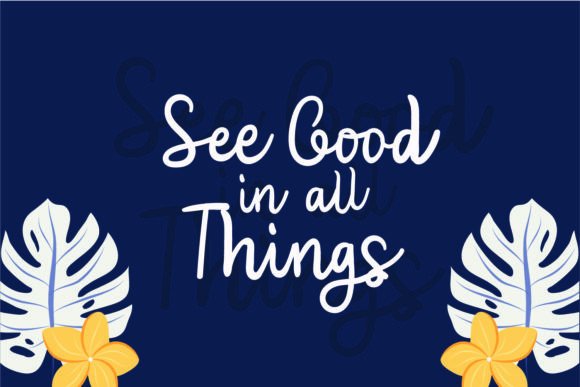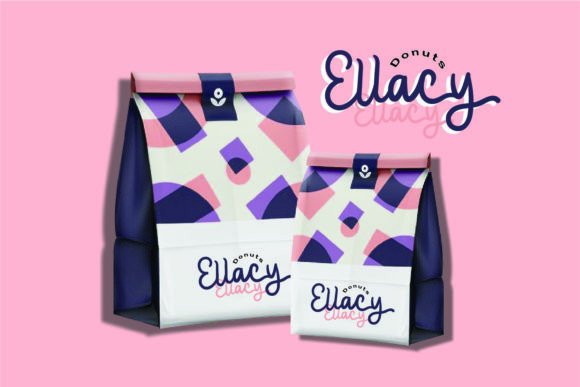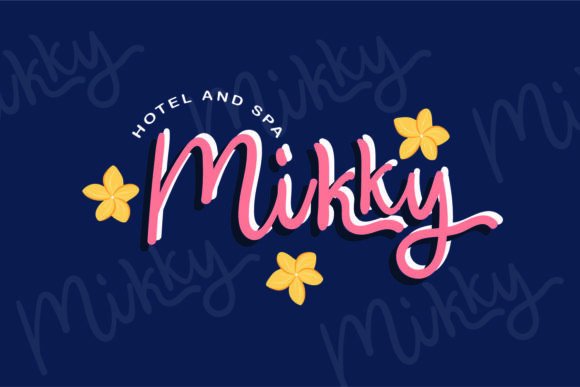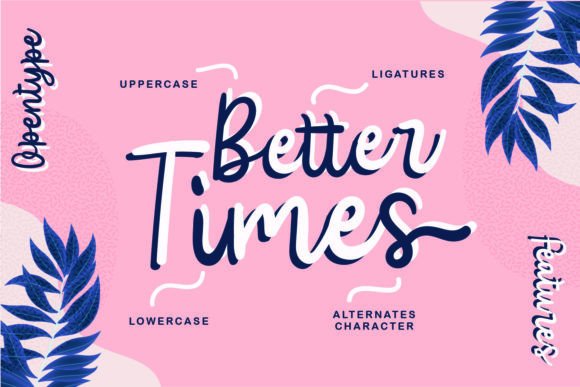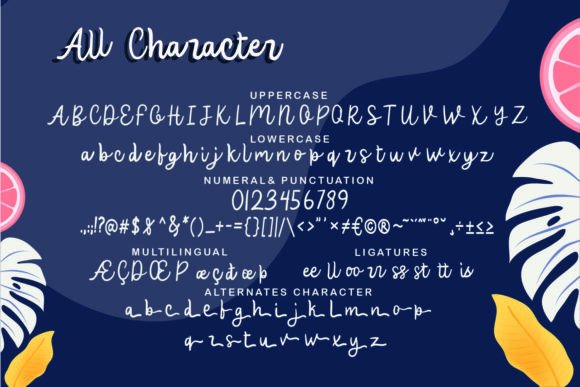
Camerichi Font: Elevate Your Designs with a Playful Script Font
Are you looking for a font that can add a touch of elegance and playfulness to your designs? Look no further than the Camerichi Font. This beautiful script font is perfect for a variety of design projects, from invitations and greeting cards to branding materials, business cards, quotes, posters, and more.
What is Camerichi Font?
Camerichi is a playful script font with a calligraphy style that is sure to capture the attention of your audience. Its unique and elegant design makes it perfect for designers and crafters who want to add a personal touch to their work. The font is designed to look beautiful on a variety of materials, from digital screens to print media.
Key Features of Camerichi Font
- Playful Script Font: Camerichi is a script font that is playful and fun, making it perfect for designs that require a personal touch.
- Calligraphy Style: The font has a calligraphy style that gives it an elegant and sophisticated look.
- PUA Encoded: Camerichi font is PUA encoded, which means you can access all of the glyphs and swashes with ease.
- Multipurpose: The font is versatile and can be used for a variety of design projects, including invitations, greeting cards, branding materials, business cards, quotes, posters, and more.
Benefits of Using Camerichi Font
There are many benefits to using Camerichi font in your designs. Here are a few:
- Elegant and Sophisticated Look: The font’s calligraphy style gives it an elegant and sophisticated look that is sure to impress your audience.
- Easy to Use: The font is PUA encoded, making it easy to access all of the glyphs and swashes.
- Versatile: Camerichi font can be used for a variety of design projects, making it a great addition to your font library.
- Unique and Playful: The font’s playful script style makes it perfect for designs that require a personal touch.
Design Ideas Using Camerichi Font
Camerichi font is a versatile font that can be used for a variety of design projects. Here are a few ideas to get you started:
- Invitations: Use Camerichi font to create beautiful and elegant invitations for weddings, parties, and other special events.
- Greeting Cards: The font is perfect for creating greeting cards for birthdays, holidays, and other special occasions.
- Branding Materials: Use Camerichi font to create branding materials, such as logos, brochures, and business cards.
- Posters: The font is great for creating posters for events, promotions, and other marketing campaigns.
- Quotes and Typography: Use Camerichi font to create beautiful quotes and typography designs for social media, blogs, and other digital platforms.
Tips for Using Camerichi Font
Here are a few tips for using Camerichi font in your designs:
- Use it with a Simple Background: Camerichi font looks best with a simple background that doesn’t compete with the font’s elegant design.
- Experiment with Different Sizes: The font looks great in a variety of sizes, so experiment with different sizes to find the one that works best for your design.
- Pair it with Other Fonts: Camerichi font can be paired with other fonts to create a unique and interesting design.
Camerichi font is a beautiful and versatile script font that is perfect for designers and crafters who want to add a personal touch to their work. Its playful calligraphy style and PUA encoding make it easy to use and versatile. With its elegant and sophisticated look, Camerichi font is sure to elevate your designs and make them stand out.